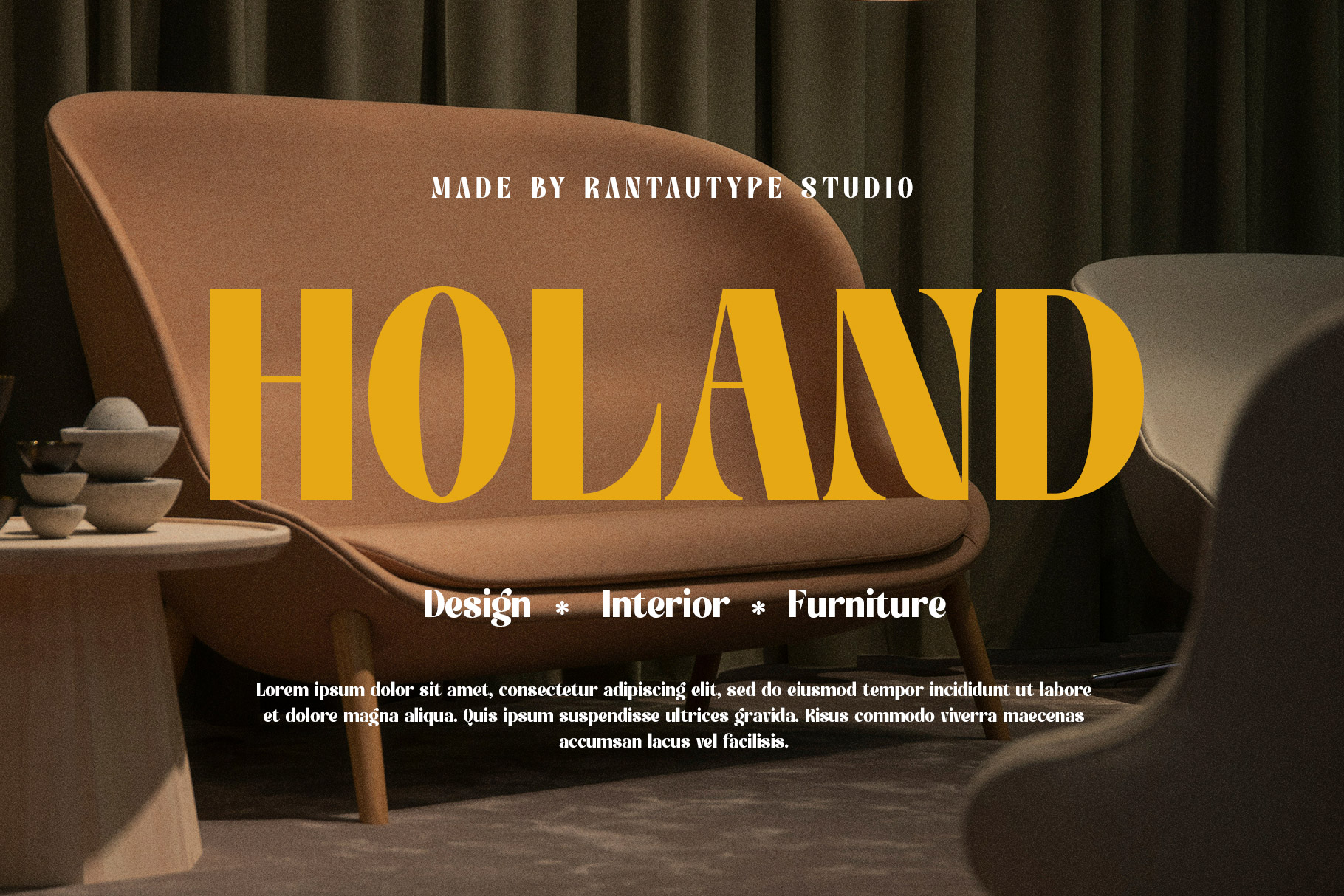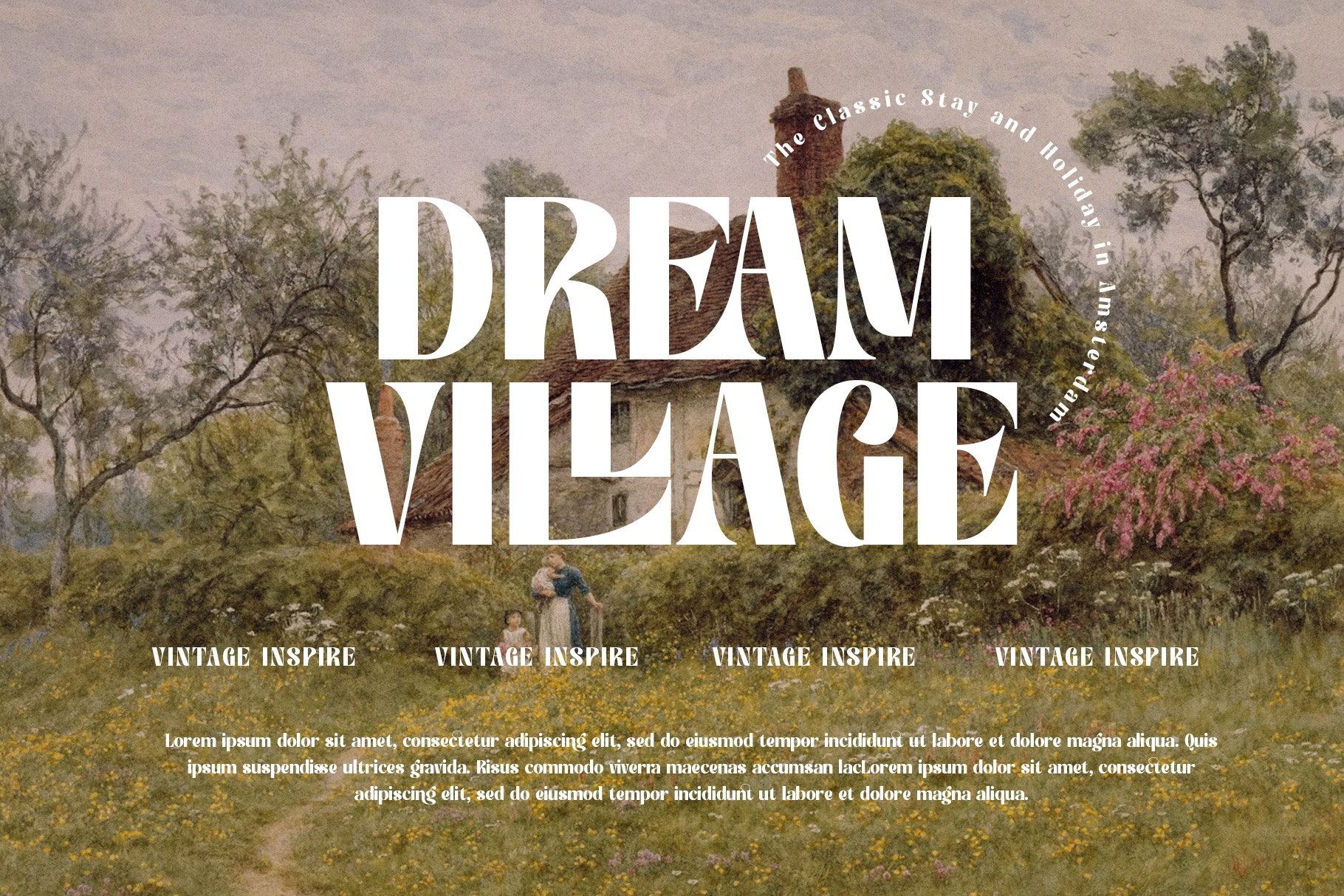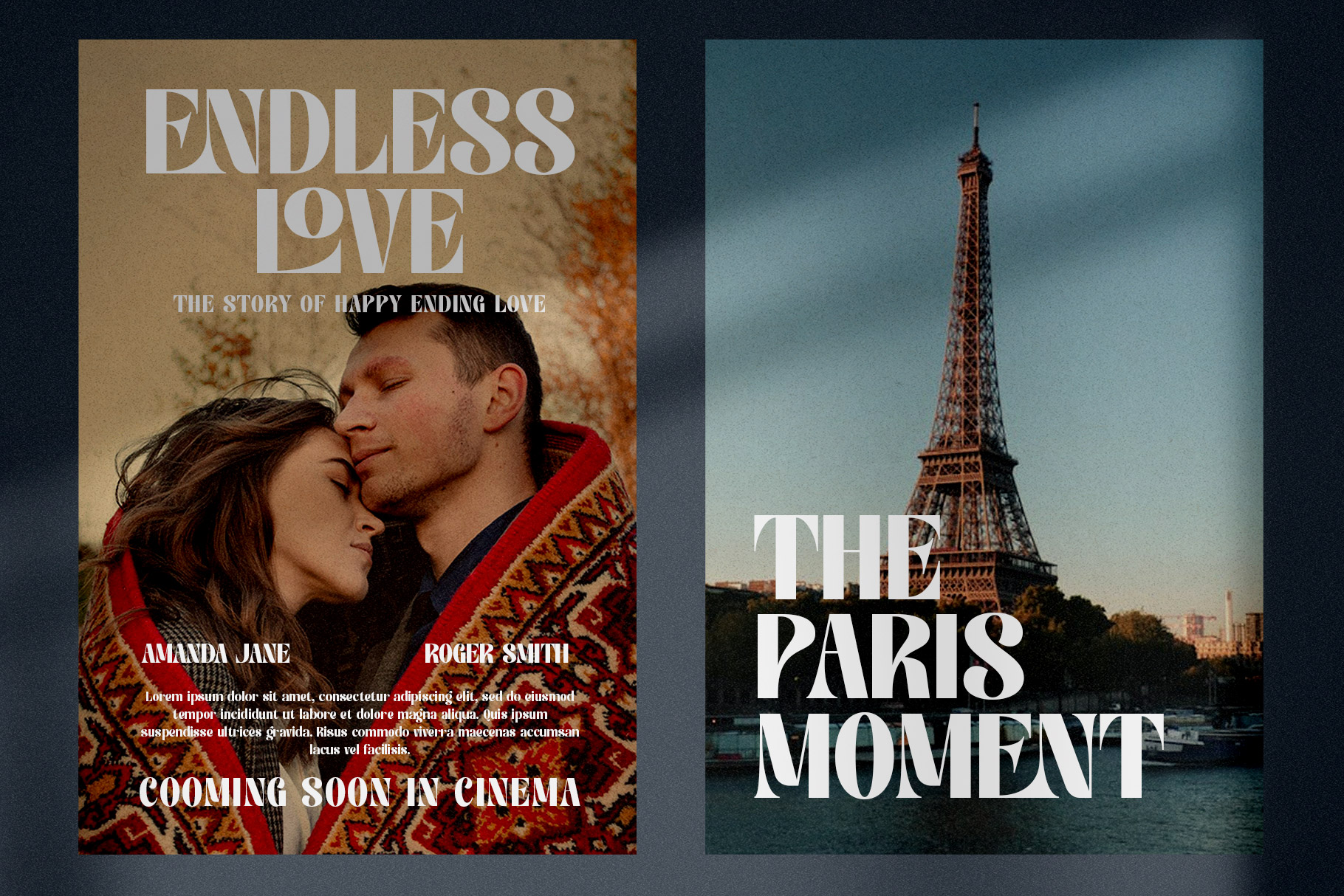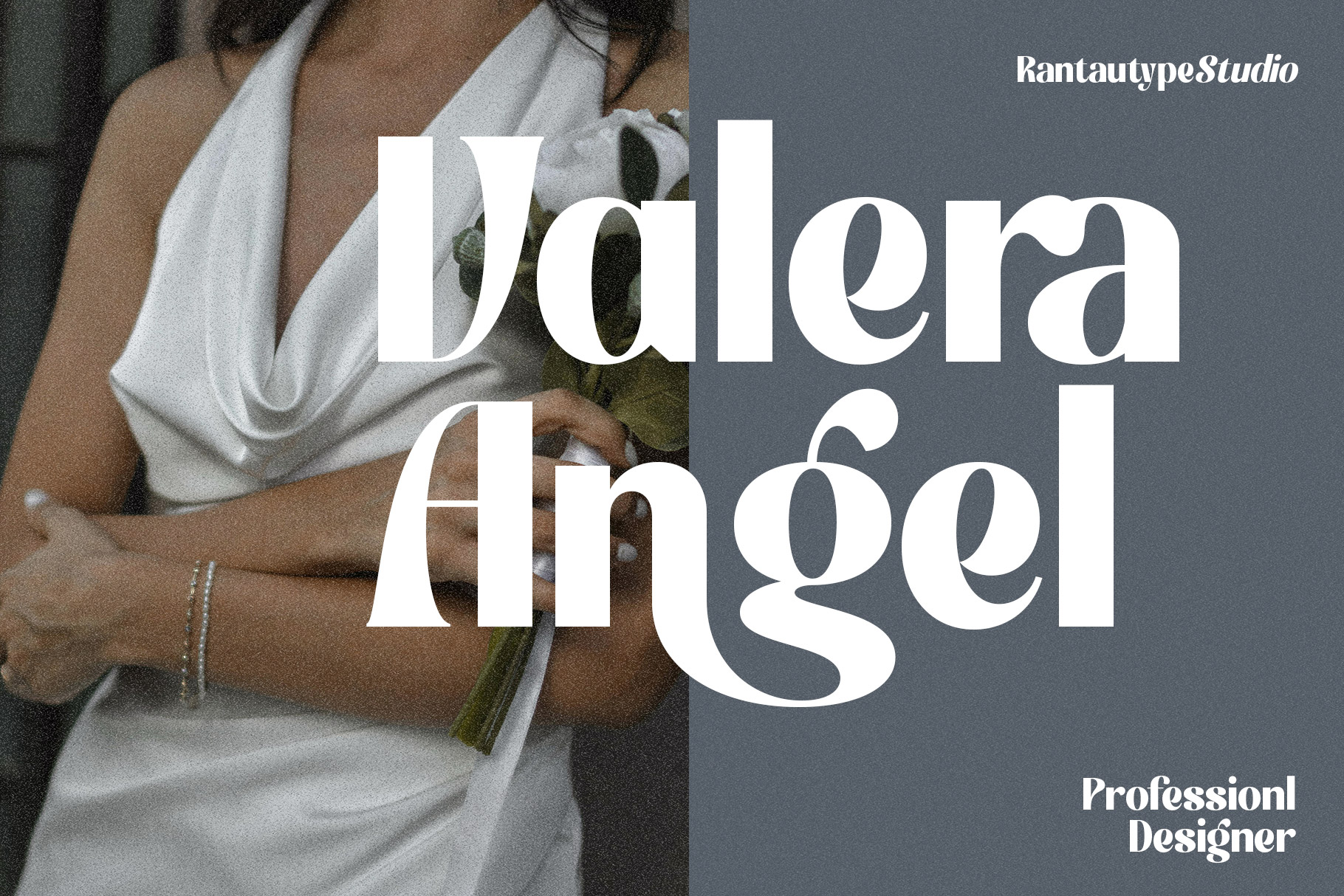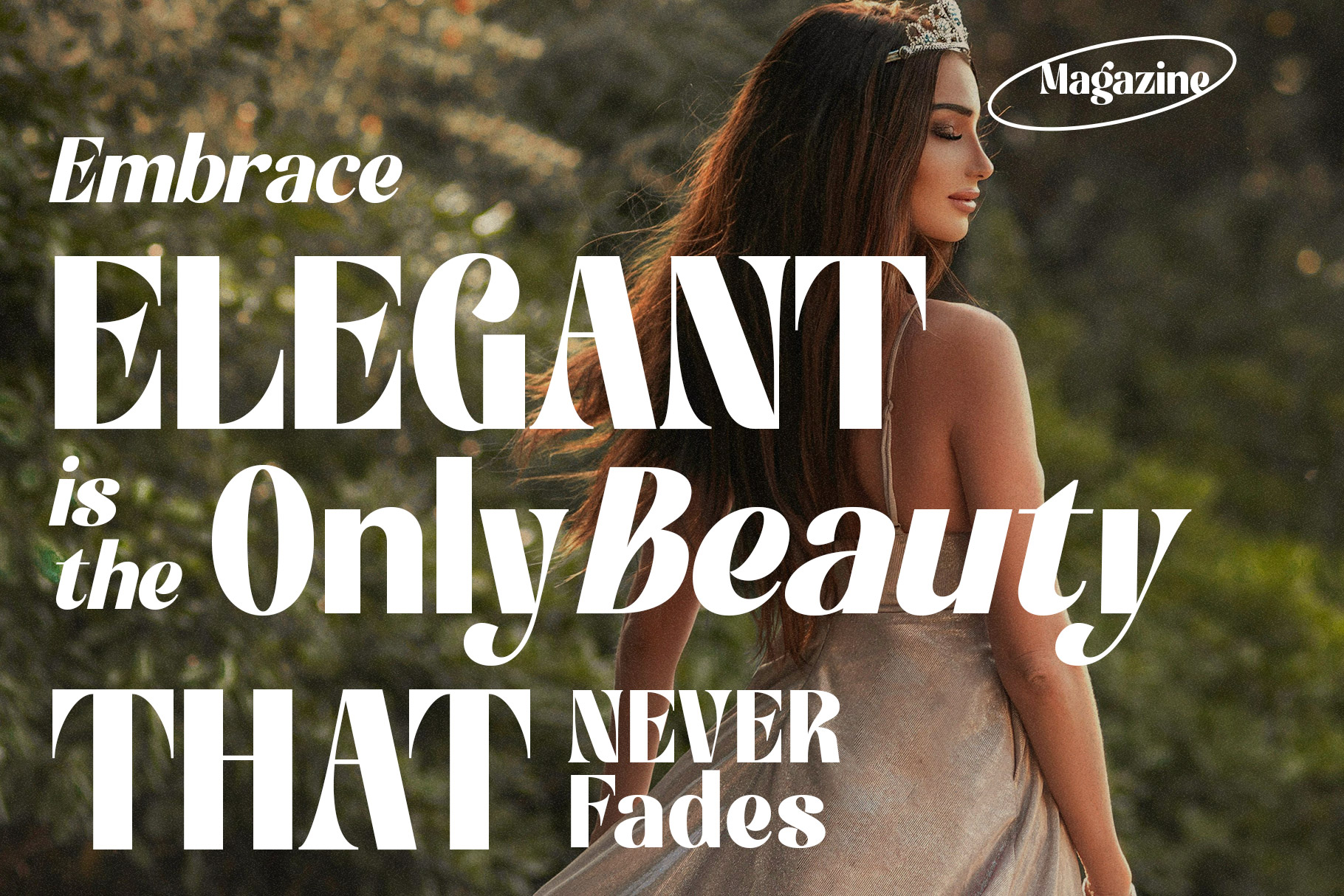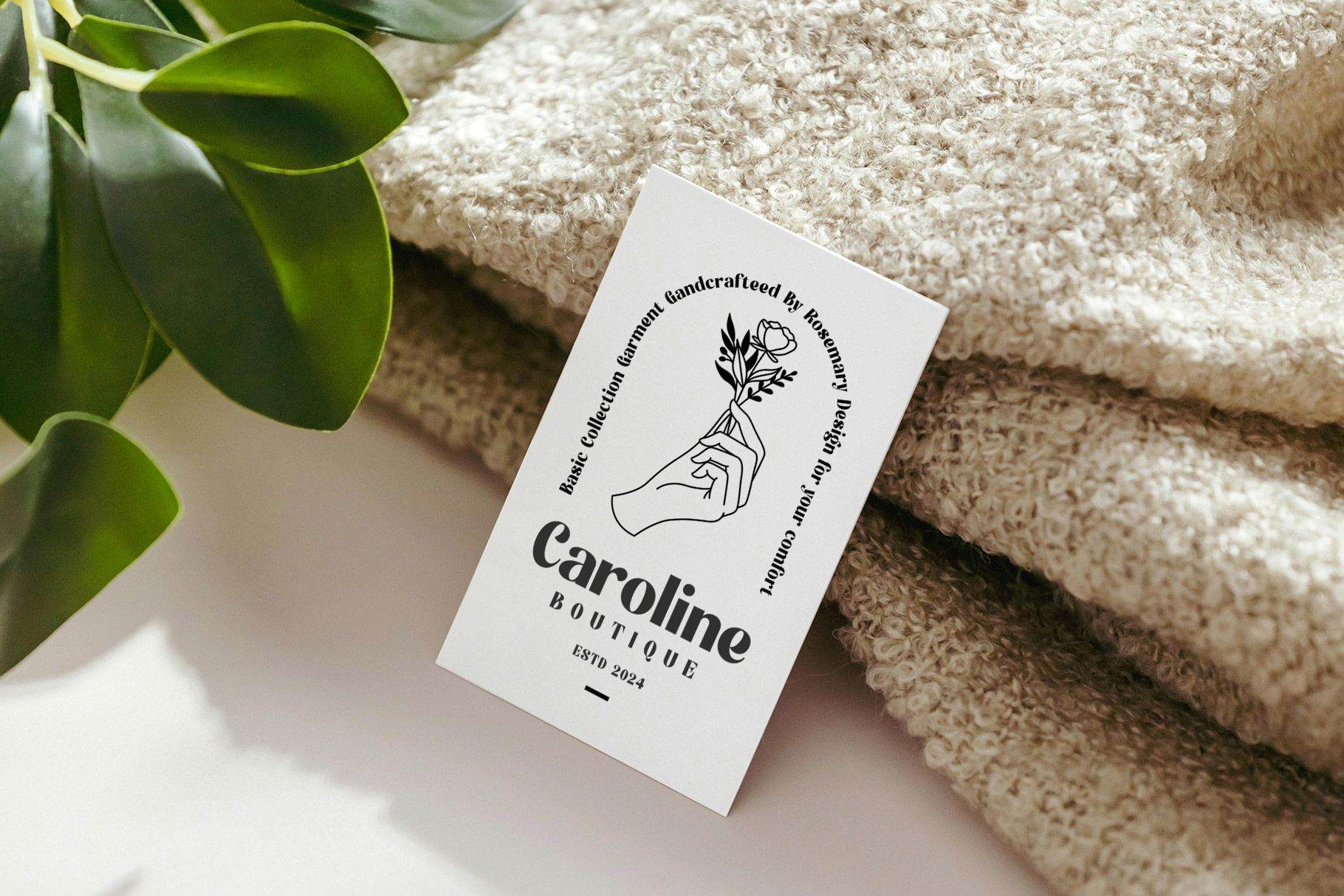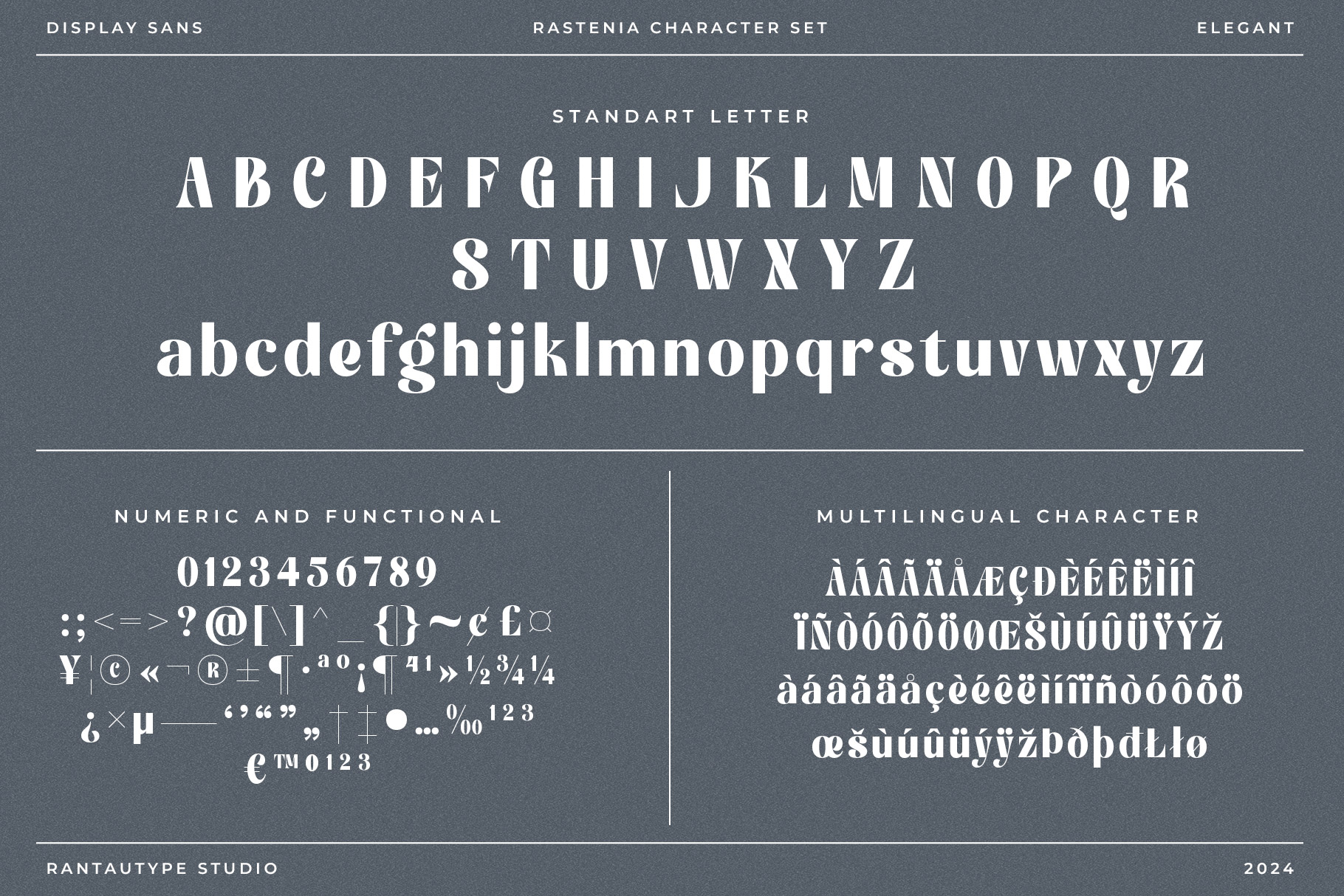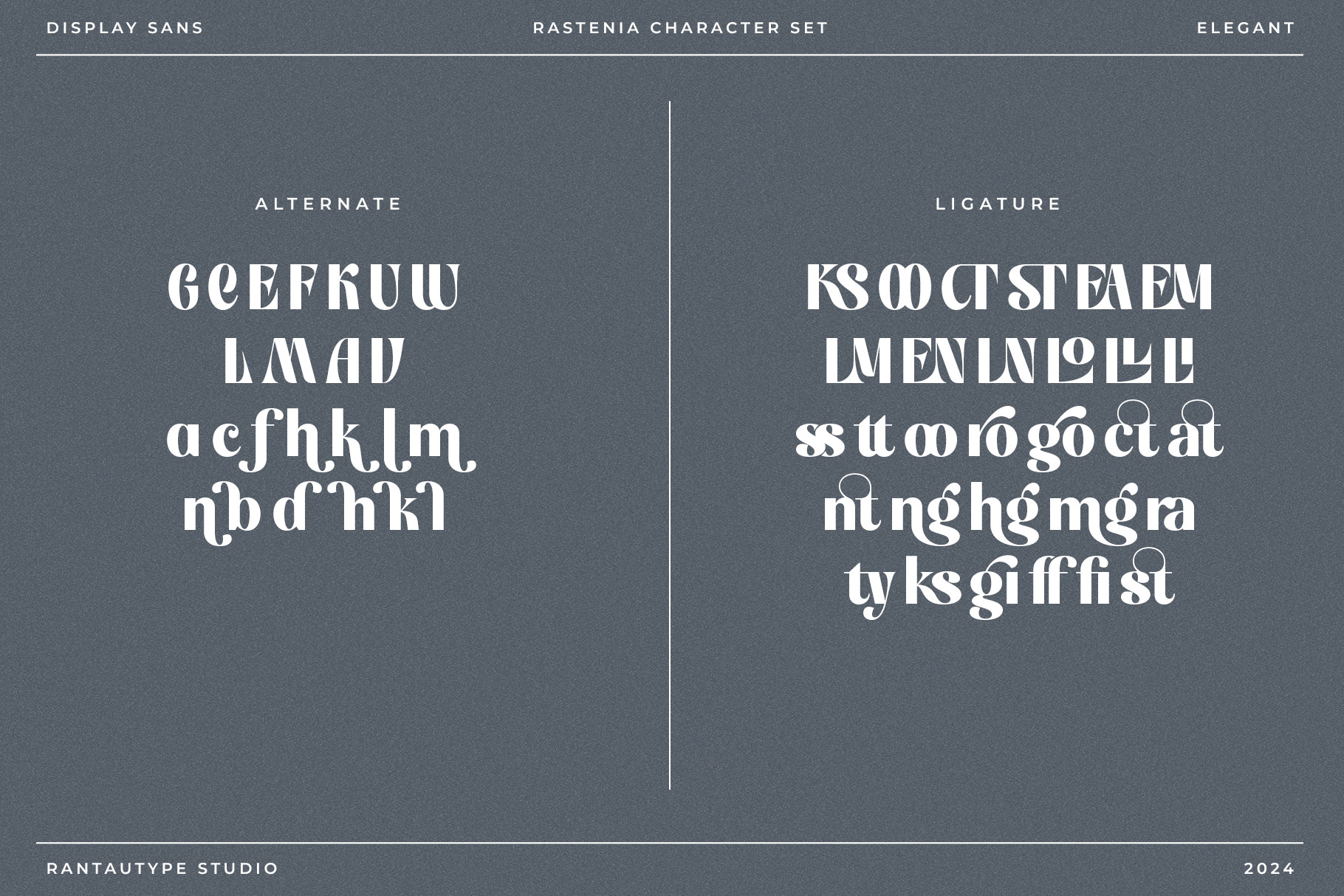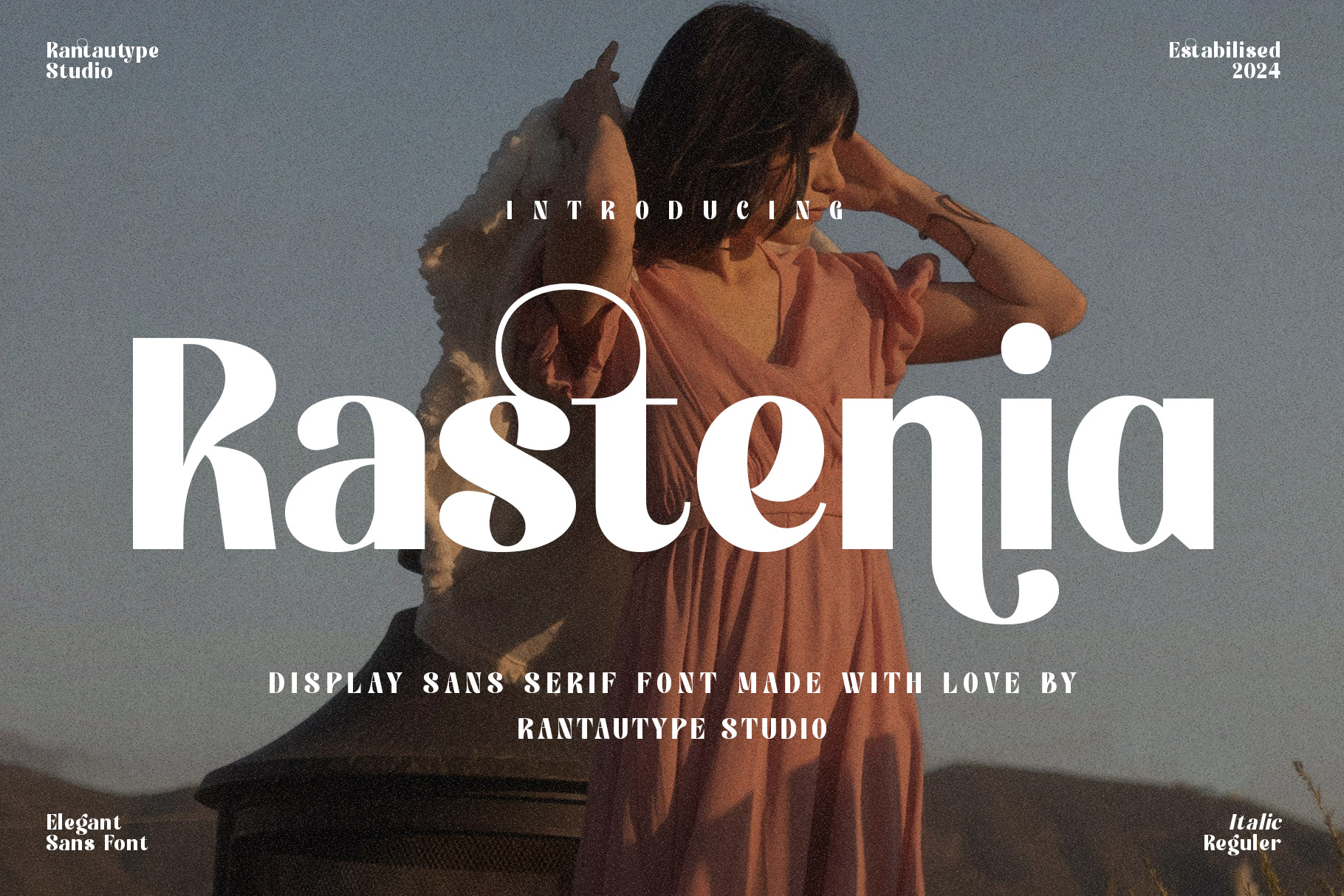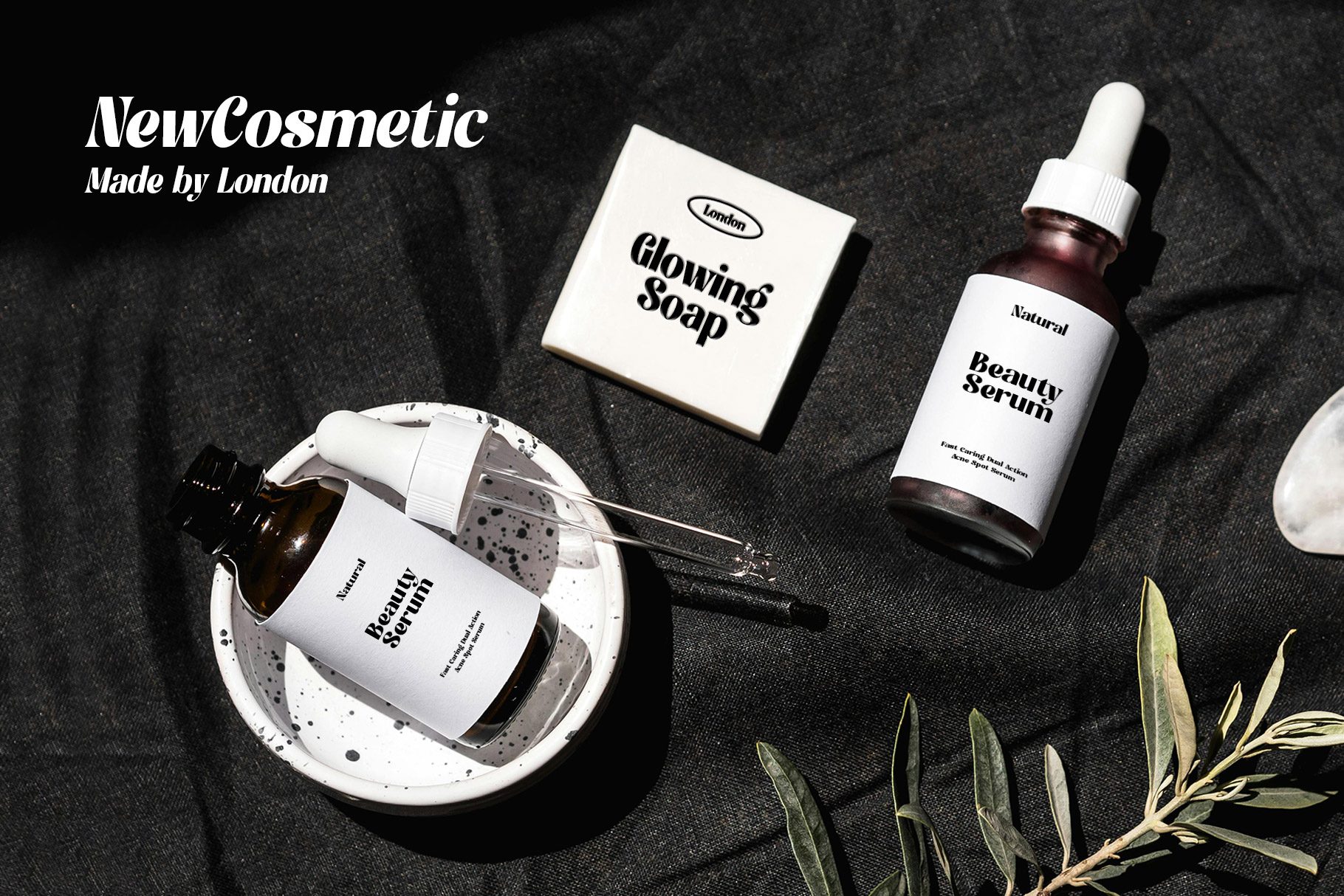
Rastenia Display Sans Font
Tranform you professional brand with Rastenia font. Rastenia is display sant font embrace grace and feminity. Rastenia Come with bold shape and elegant character to make memoriable form of harmony.
Rastenia is a perfectly choice for any creative endeavor, chic, lifestyle design such as logos, advertisements, stationery, branding project, display and magazine, invitation, corporate brand, product design, label, business project and many other project with elegant touch.